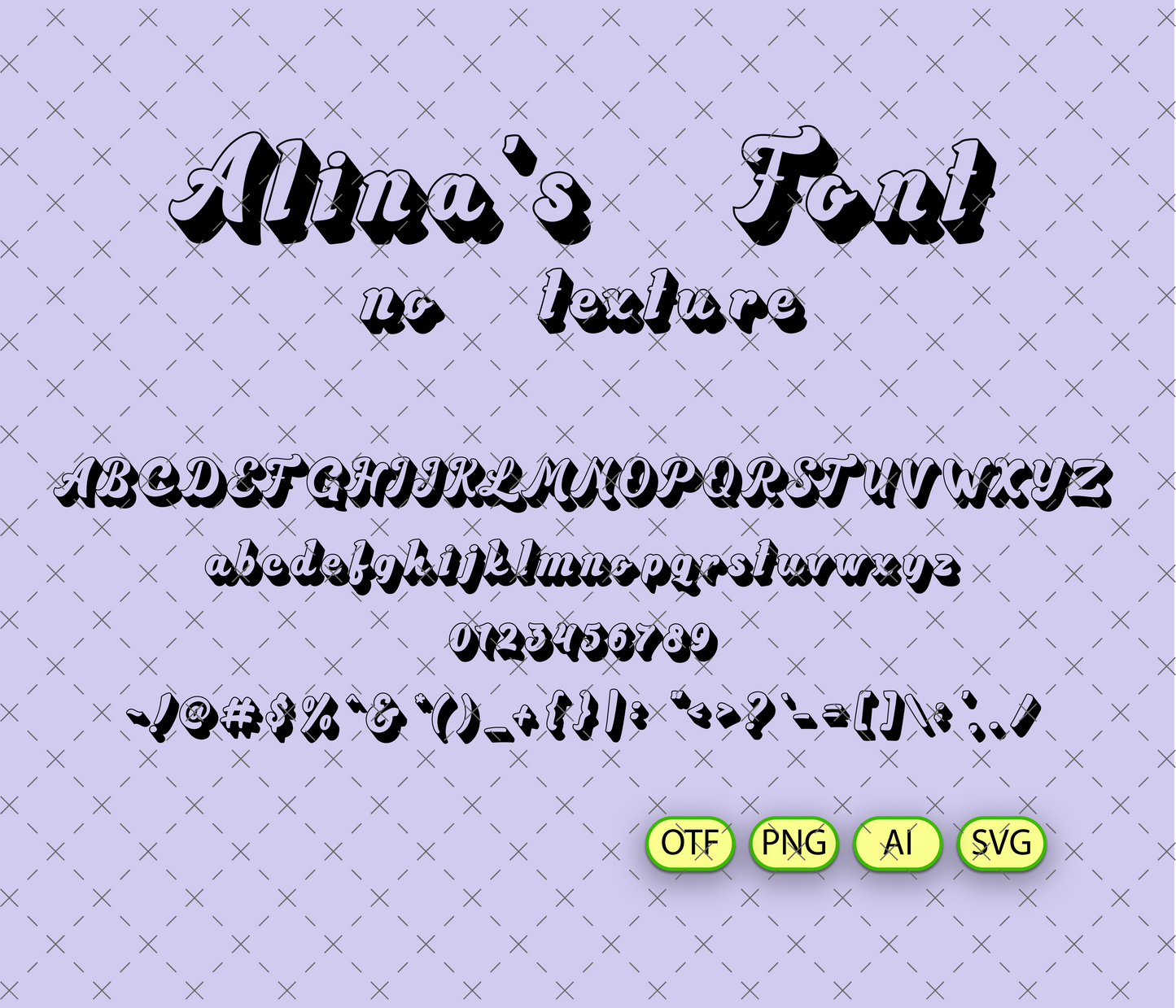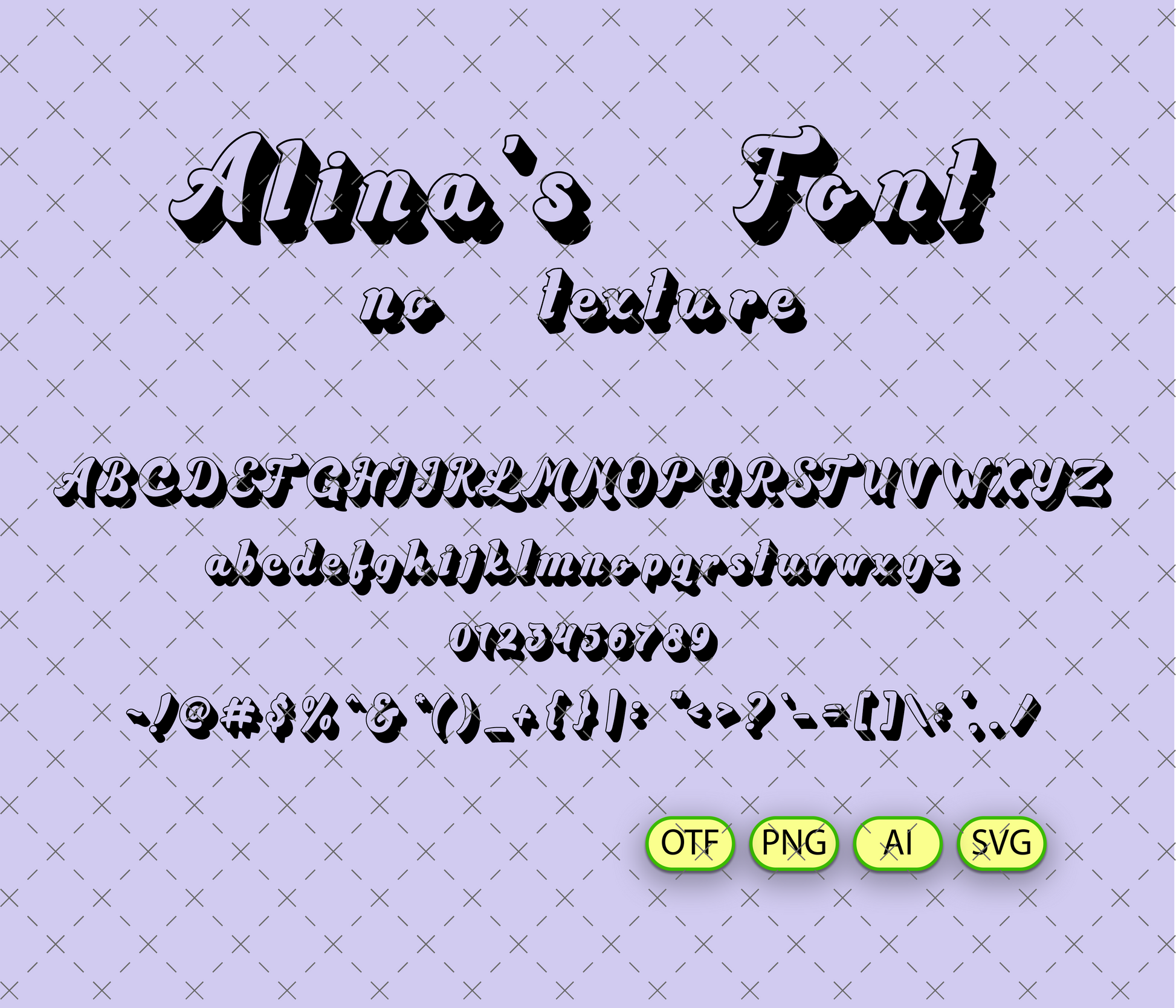
Soul Vinyl Font
Step into the warm crackle of spinning platters and soulful seventies sound culture with our Soul Vinyl Font, capturing the essence of beloved record store discovery and funky rhythm storytelling. Perfect for music enthusiast communities, vintage record collectors, soul culture media producers, and retro design specialists, this font brings the rich, warm character of legendary seventies vinyl groove narratives to your projects. Create head-turning invitations, commercial goods, or web content with the soulful presence of spinning record and turntable storytelling.
Clean Soulful Typography for Vinyl Design & Seventies Groove Projects
Our Soul Vinyl Font features rich, warmly crafted letterforms with crisp, editable outlines reflecting the world of beloved spinning platters and legendary seventies record store wonder. Unlike the textured version, this clean font lets you apply your own colors, effects, and finishes — total creative freedom.
- Event Promotions: Craft soulful invitations, posters, and banners for vinyl-themed celebrations, record collector gatherings, and funky music events that radiate the warm spirit of legendary seventies groove entertainment
- Merchandise Design: Perfect for apparel, wall prints, adhesive graphics, and collectibles that showcase the rich aesthetic of spinning record and soul music culture themes — customize colors to match any palette
- Digital Media: Warm up websites, content channels, and social platforms with soulful header designs and imagery that express the groovy wonder of legendary seventies vinyl eras
- Creative Content: Add signature groove flair to music illustrations, record artwork, and imaginative projects inspired by beloved spinning platter and soul rhythm chronicles
- Personal Projects: Stir soulful warmth into memory albums, handcrafted items, and living space decorations inspired by the world of legendary seventies vinyl and record store characters
Our font pays tribute to the world of spinning platter wonder and generation-spanning seventies soul groove culture, empowering your projects with its rich and warmly soulful character. Whether crafting music-themed materials, designing vinyl culture products, or adding a seventies groove touch to personal projects, this font communicates the timeless essence of soul vinyl magic. Ready to spin soulful wonder into your creations? This font is your key to attention-grabbing, impactful design.